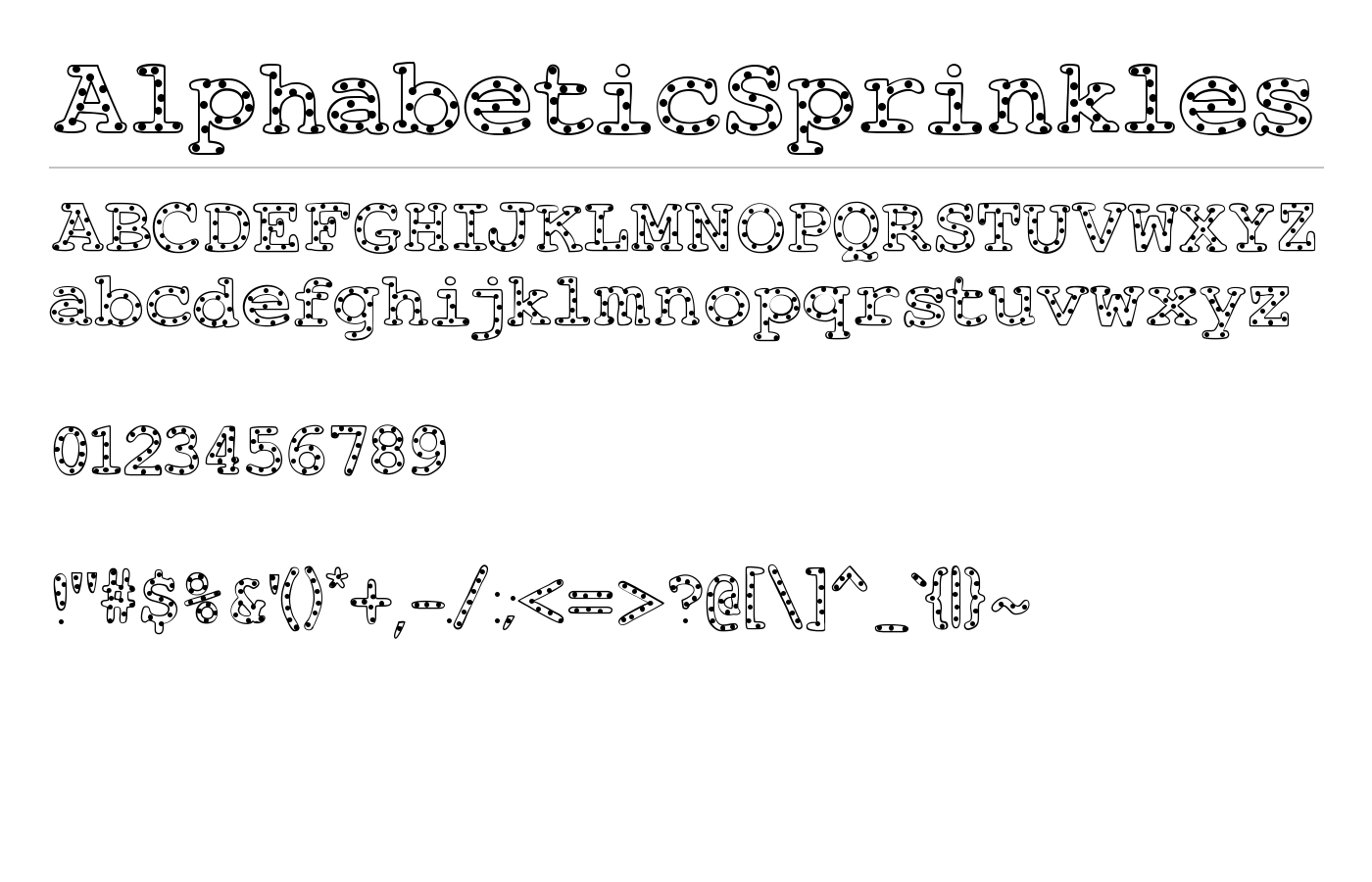
AlphabeticSprinkles is a playful slab serif font characterized by its bold, blocky letterforms adorned with whimsical dotted patterns that resemble sprinkles. Its consistent medium weight and sturdy structure give it a friendly yet vintage vibe, making it ideal for fun, eye-catching headlines, playful branding, and creative packaging where a touch of charm and uniqueness is desired. This font works best in display settings where its decorative details can stand out without compromising readability.
AlphabeticSprinkles Font
About AlphabeticSprinkles Font